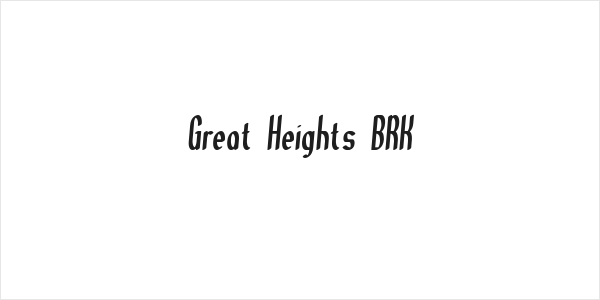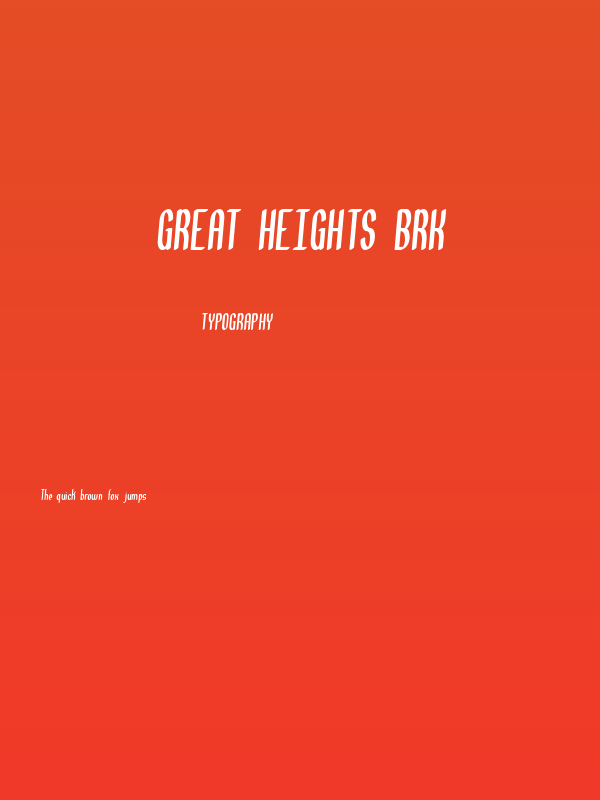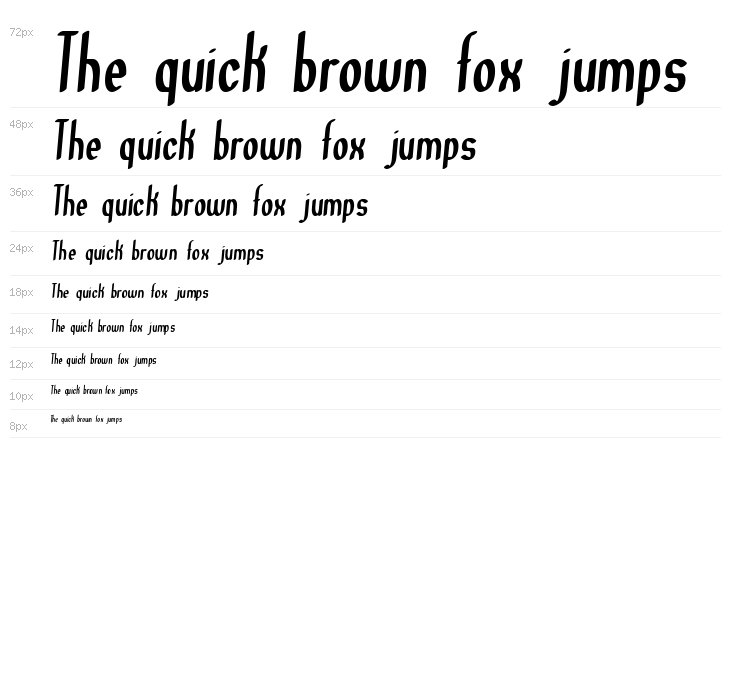
Great Heights BRK Font
Great Heights BRK Description
This font features a bold and dynamic style with a slightly condensed appearance. The characters are elongated, giving a sense of height and movement. The strokes are thick and consistent, providing a strong visual impact. The uppercase letters maintain a uniform height, while the lowercase letters have a playful, slightly slanted design. The numbers are bold and clear, ensuring readability. Special characters are creatively designed, adding to the font's unique personality. This font is ideal for projects that require a bold and eye-catching display.